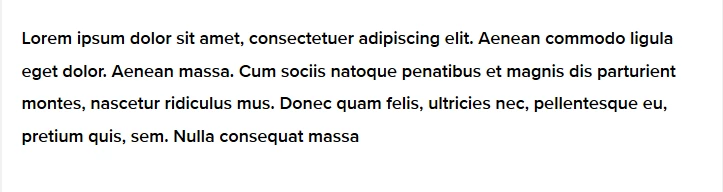
Proxima Nova - Bad font rendering at small sizes
we use the typeface Proxima Nova Semibold for one of our clients. Unfortunately the font renders bad at smaller font-sizes (18px) Please take a look at the attached Image. We bought the font at MyFonts.com. At the Adobe Font Section the typeface is rendered nicely. https://adobe.ly/2wCXt9k
Is there a way to optimize the font that it renders much smoother in small sizes? If there is no way, can you prefer a very close Alternative with a very good legibility?
There may be differences in the font formats involved.
The Proxima Nova fonts offered via the Adobe Fonts service are in OpenType CFF format. The same fonts offered by MyFonts.com are offered in either OpenType CFF (Type 1 Bezier outlines and hinting) or OpenType TTF (TrueType quadratic outlines) formats. The Proxima Nova fonts that I have on my particular systems are OpenType CFF and I have see no problem at small point sizes. Did you license the OpenType CFF or the OpenType TTF version? That might account for some differences.
Did you solved this issue? I'm currently having dame issue in Microsoft for smaller sizes in Mac displays well